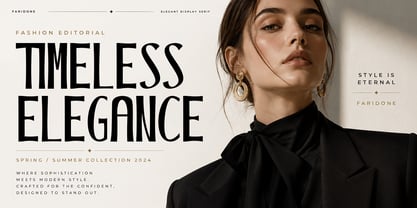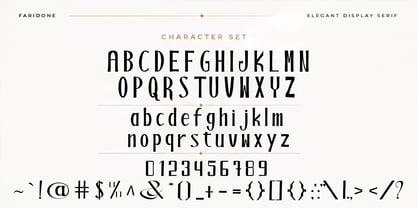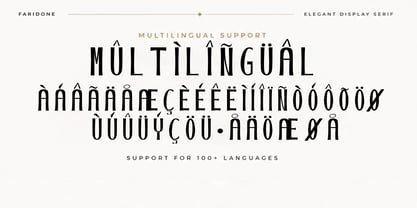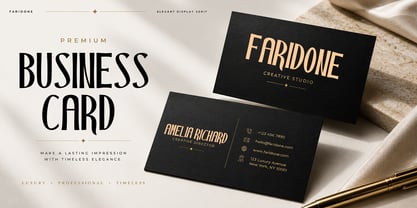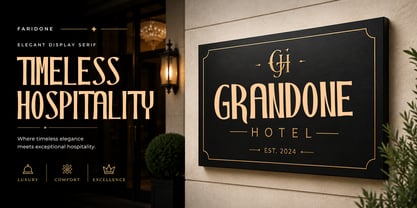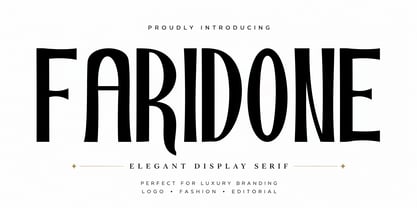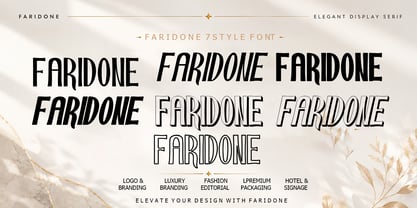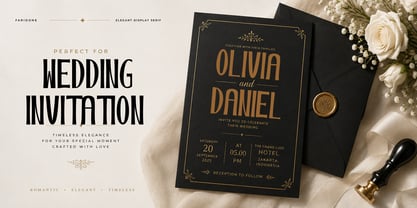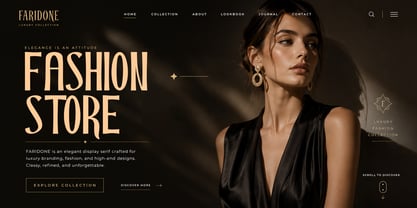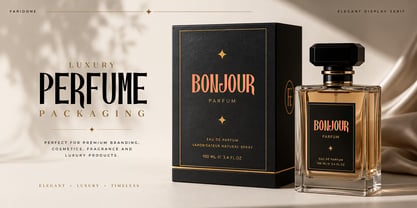
Faridone
by Shape Studio
The Faridone Font Family was designed by Teuku Saifullah and published by Shape Studio. Faridone contains 7 styles and family package options. More about this family
Faridone is an elegant display serif typeface crafted to bring sophistication and luxury to every design. Featuring refined curves, graceful proportions, and striking high-contrast letterforms, this font is perfect for creating premium visual identities with a timeless aesthetic.
Designed for modern branding, fashion editorials, luxury packaging, cosmetic labels, magazine headlines, invitations, logos, website headers, and premium marketing materials, Faridone delivers a distinctive presence that instantly captures attention.
The typeface also includes extensive multilingual support, allowing you to create beautiful typography for a wide range of international languages.
Perfect For:
• Luxury Branding
• Fashion Editorial
• Premium Logos
• Beauty & Cosmetics
• Perfume Packaging
• Wedding Invitations
• Boutique Branding
• Magazine Headlines
• Hotel & Restaurant Branding
• Website Hero Headers
• Social Media Graphics
• Premium Print Design
Features
• Uppercase & Lowercase
• Numbers & Punctuation
• Multilingual Support (100+ Languages)
• Clean & High-Quality Letterforms